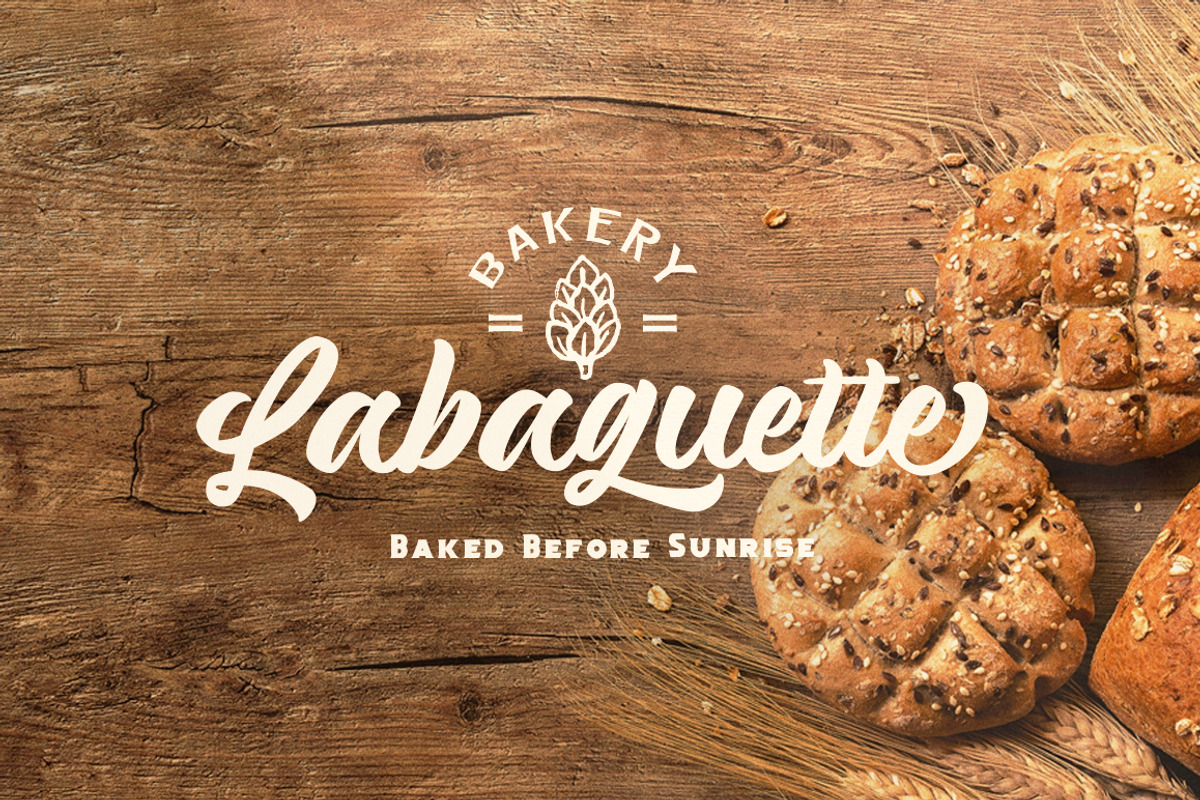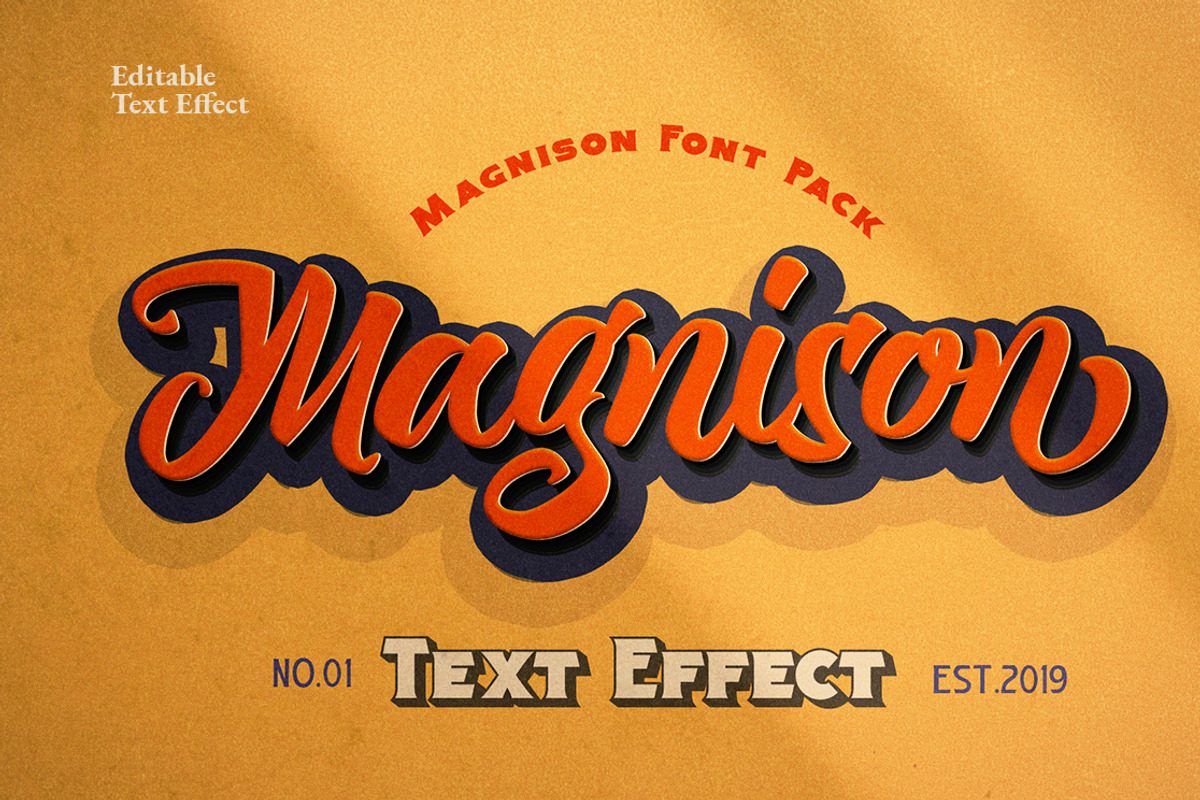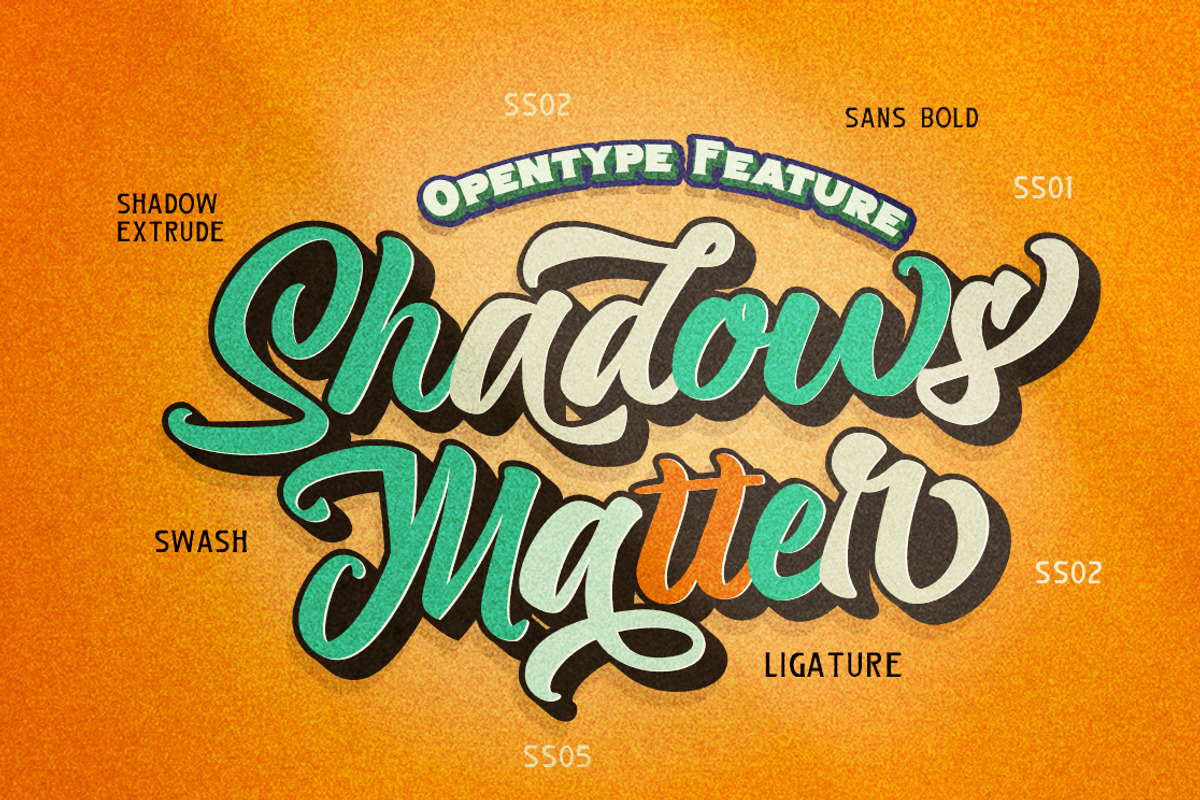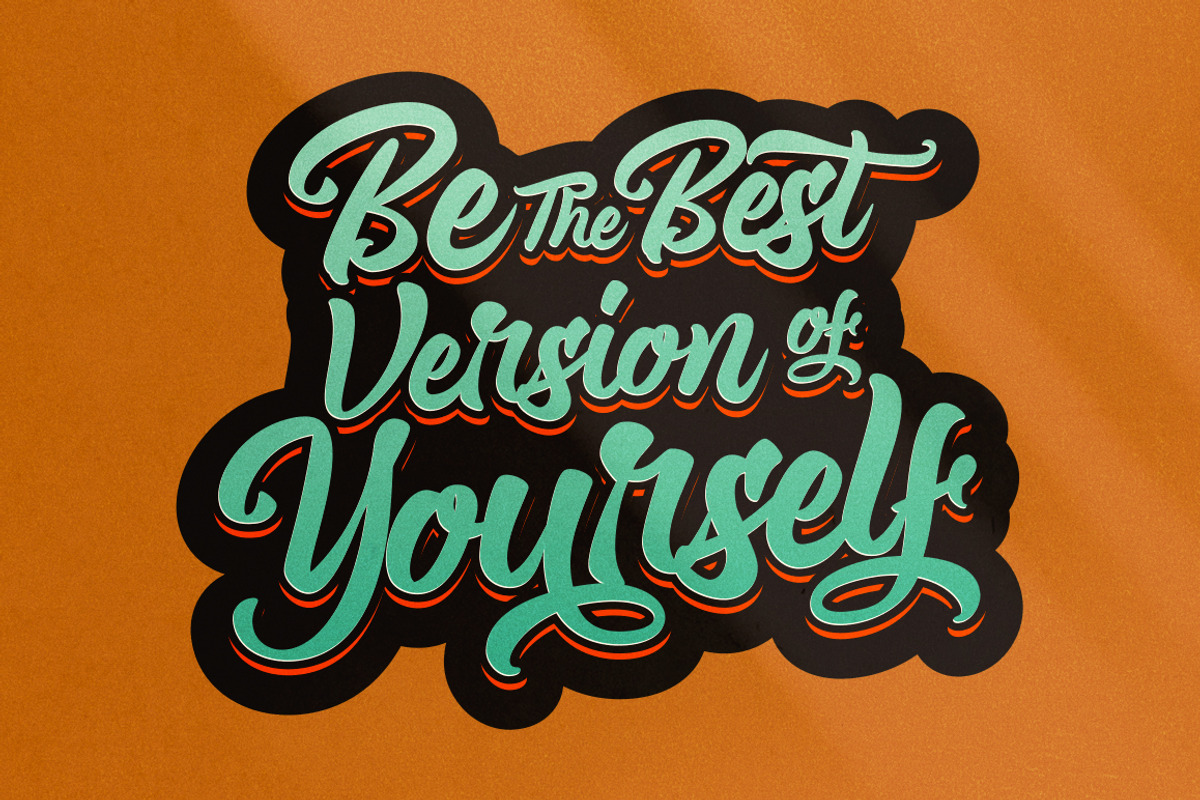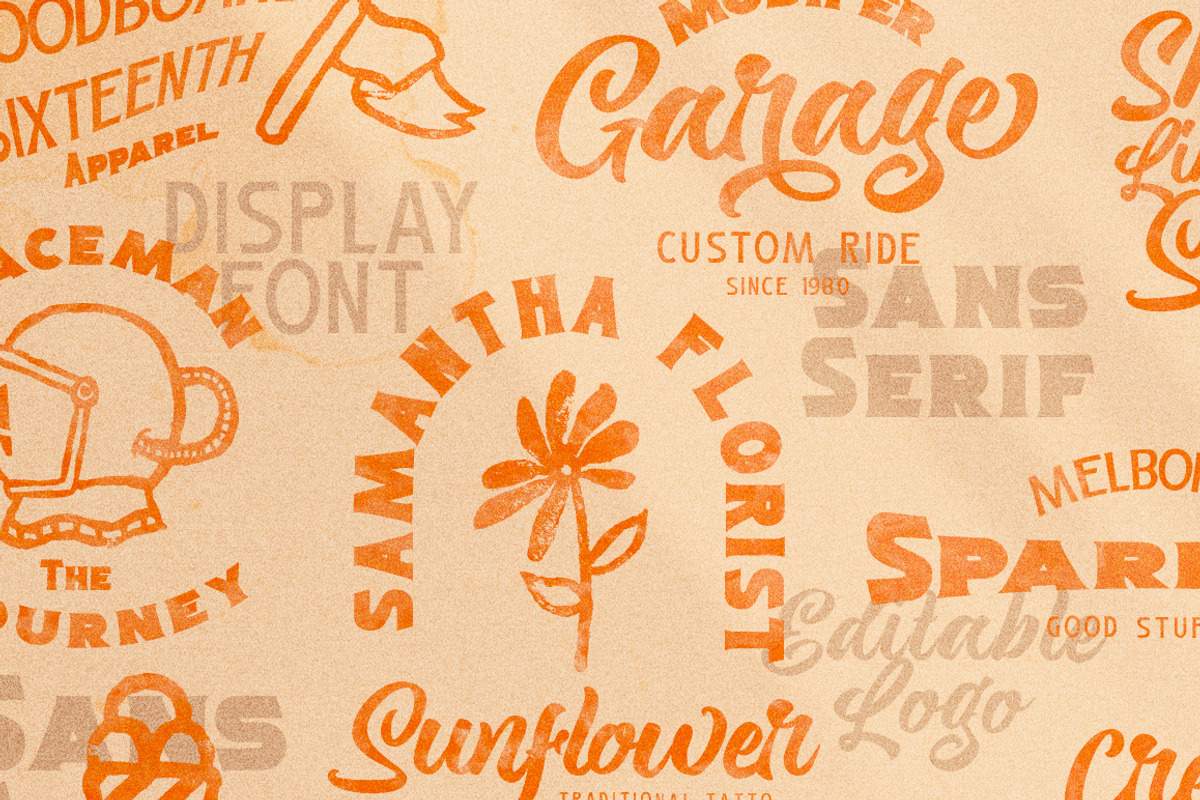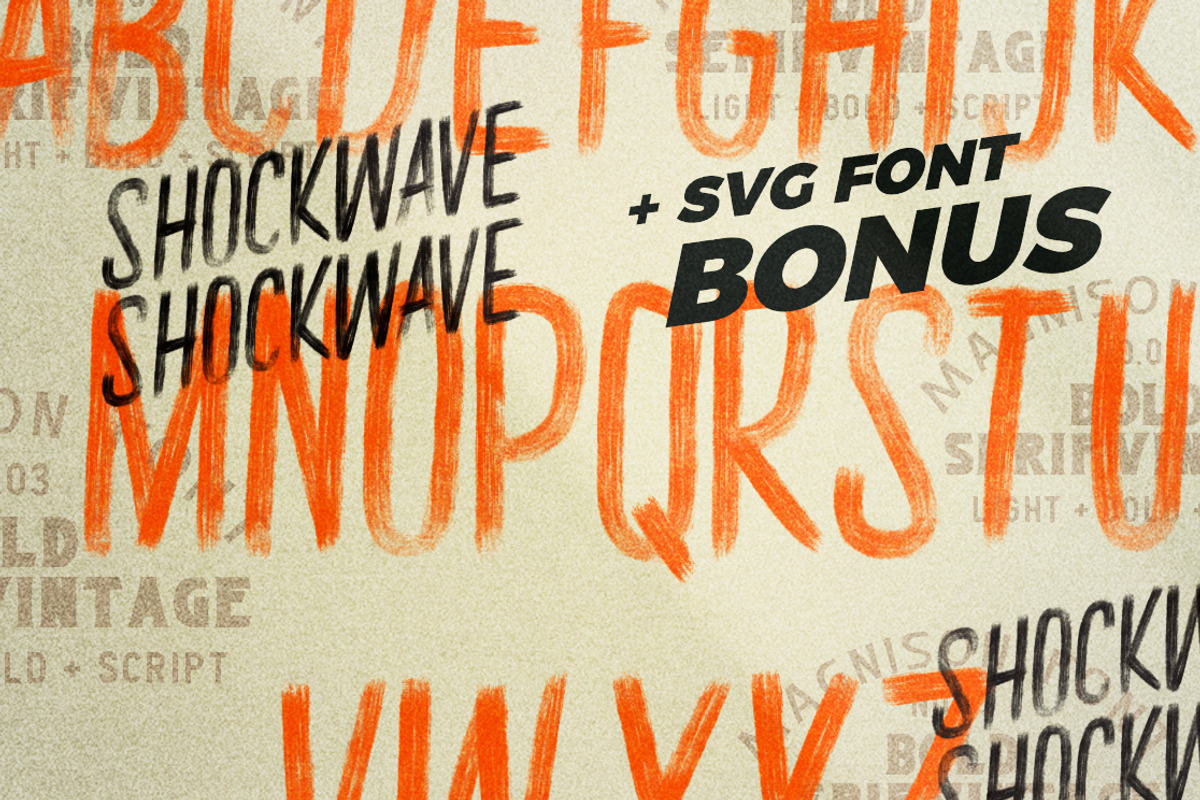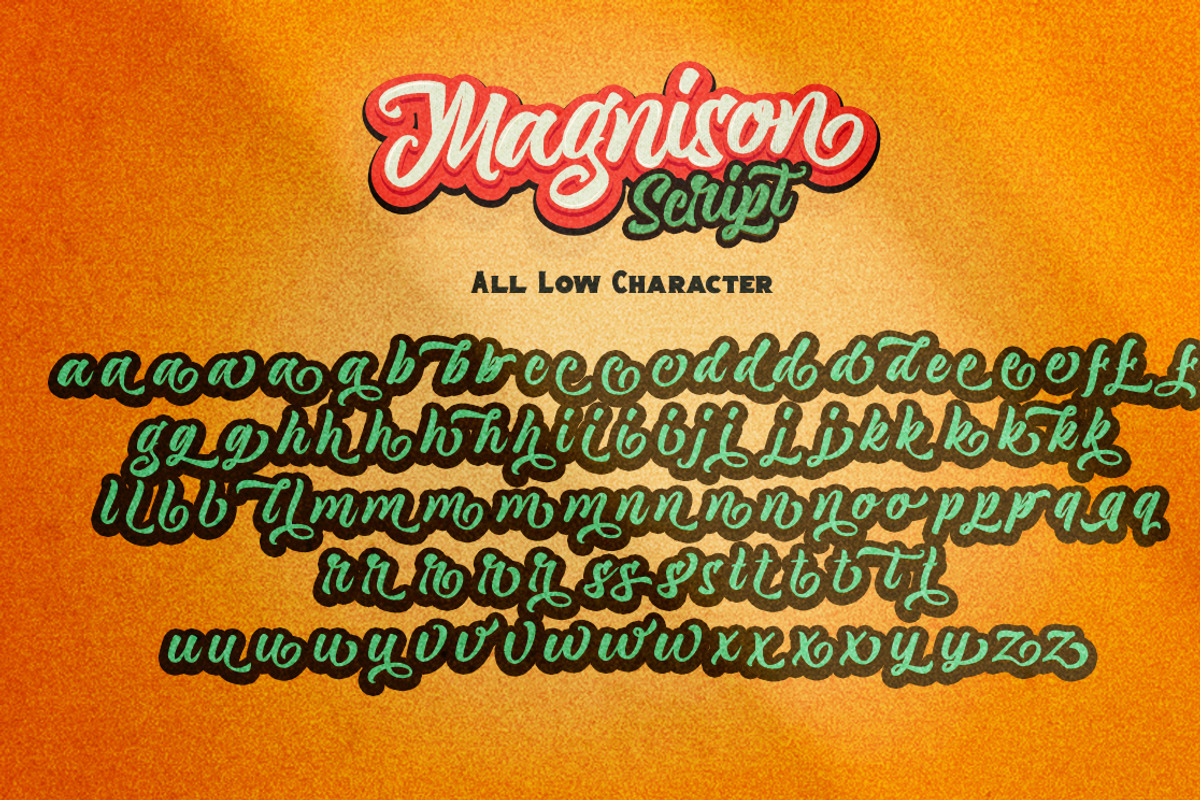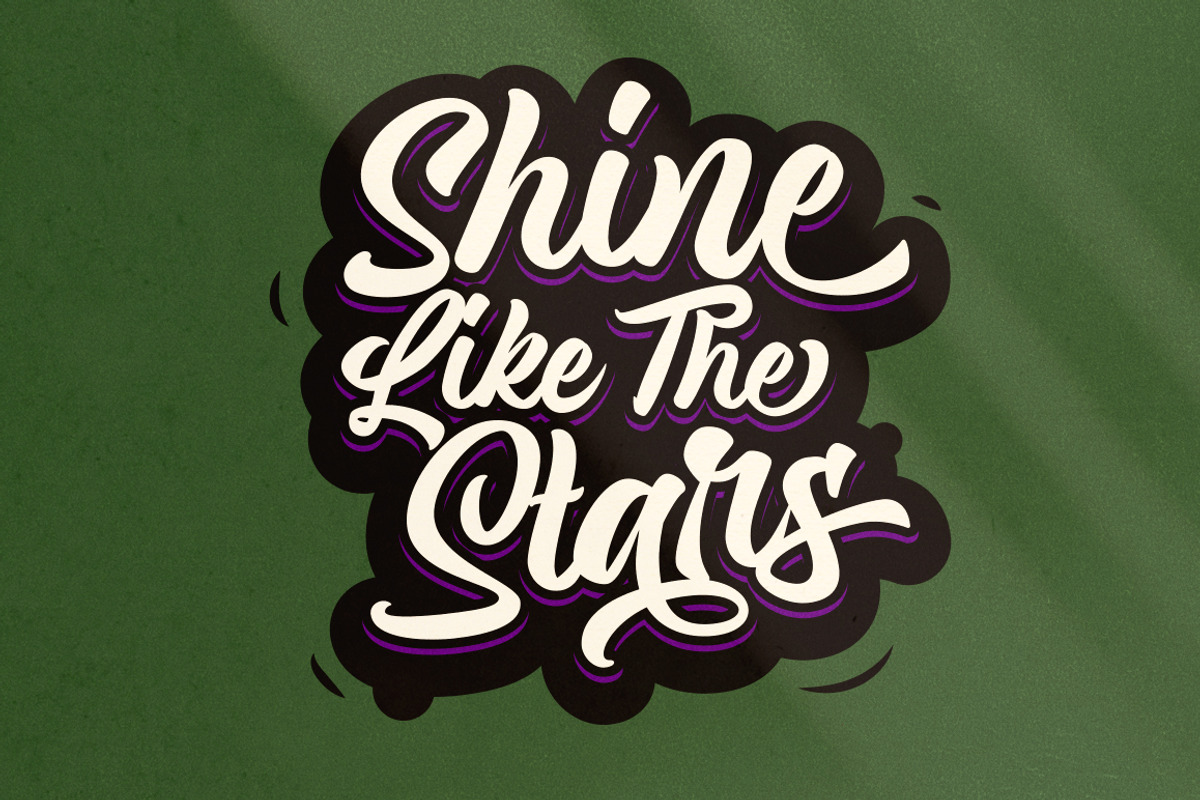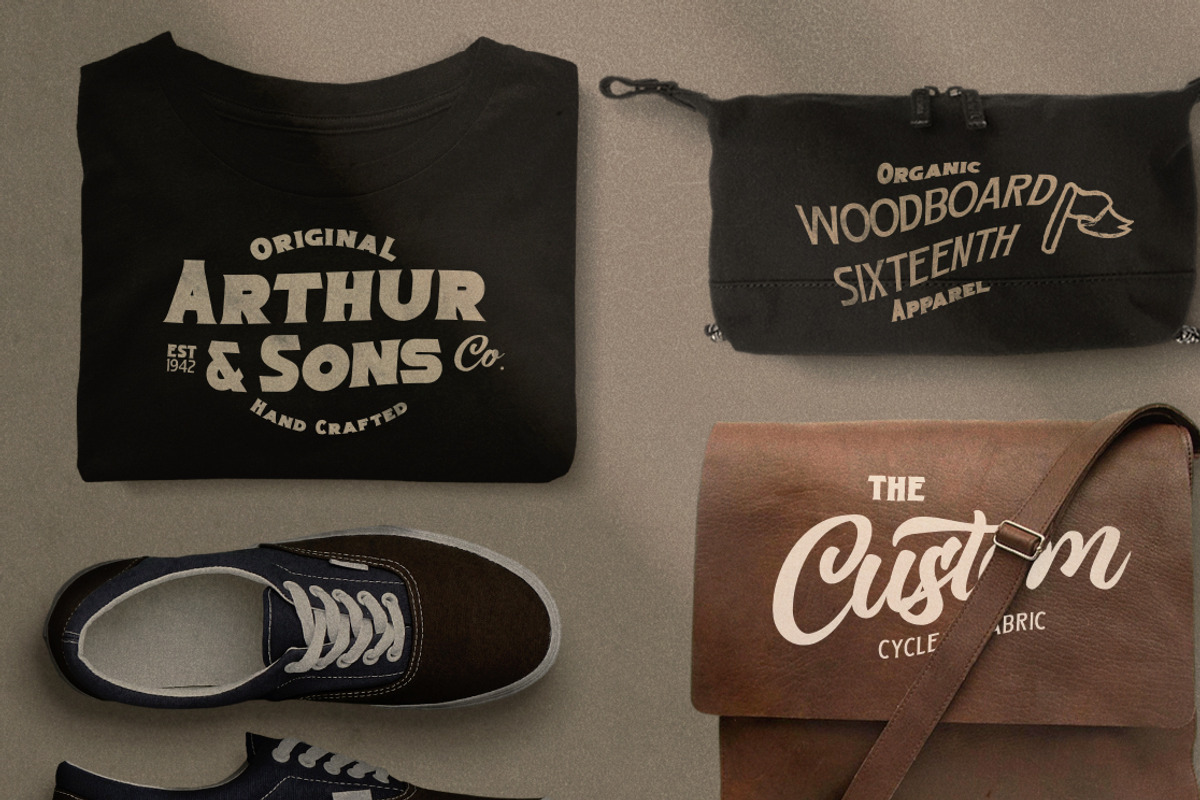
Magnison Font Pack + Bonus
Magnison Font Collection is combination Script and Serif with bold and light, Inspired by Retro style and combination with Hand Lettering style. I'm made with personality touch every single curve. I hope this can make inspire you from your work. and a very bouncy baseline It has a perfectly paired complimentary marker font , and a super handy set of bonus Illustrations and Text Effect. Ideal for logos, handwritten quotes, product packaging, header, poster, merchandise, social media & greeting cards.